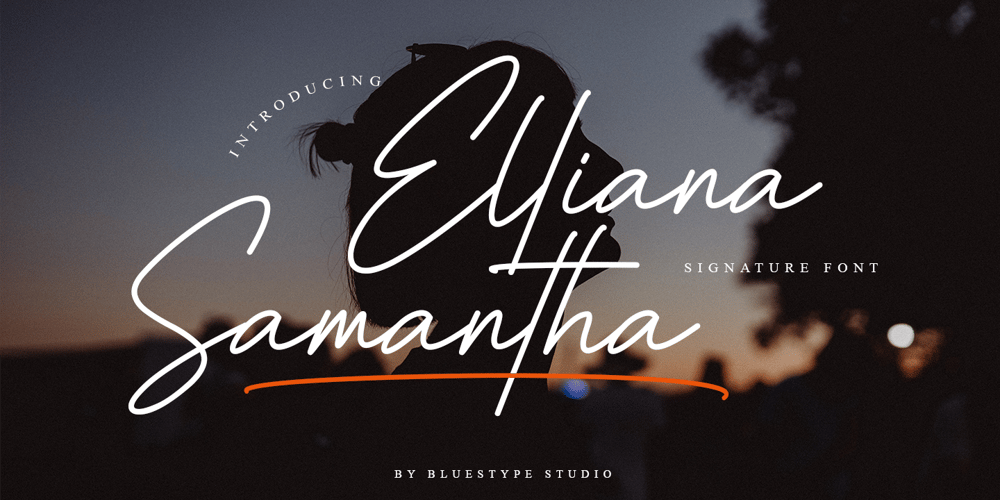
Elliana Samantha Font Family was designed by Jefri Dwi Alfatah and published by Bluestype Studio. Elliana Samantha contains 1 styles and family package options. This is our newest product called Elliana Samantha. Elliana Samantha is a stunning signature font with a cool twist. Get inspired by its modern simplicity!This font is suitable for use on business cards, wedding invitations, t-shirt designs, logos, magazines, quotes, fashion, watermarks, invitations, signatures.Thank you, and don’t forget to check out our other products.